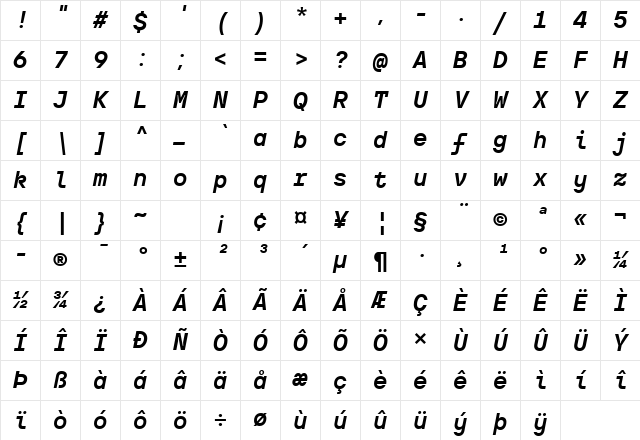
TT Interphases Pro Mono Trl Bold Italic Free Font
TT Interphases Pro Mono Trl Bold Italic
Designer: Designed by Antonina Zhulkova, Pavel Emelyanov, Marina Khodak, Kseniya Karataeva, Nadyr Rakhimov, Nadezhda Polomoshnova, Katya Kurtova, Tamara Streltsova, Radik Tukhvatullin, Yulia Gonina. Technical designers Ivan Gladkikh, Yuriy Nako, Tasya Petelina, Vic
Design Context for TT Interphases Pro Mono Trl
TT Interphases Pro Mono Trl uses fixed-width spacing throughout, giving it the structured, systematic character associated with coding environments and technical documentation. The slanted form adds forward momentum and visual energy. Its bold stroke weight gives it real presence on the page.